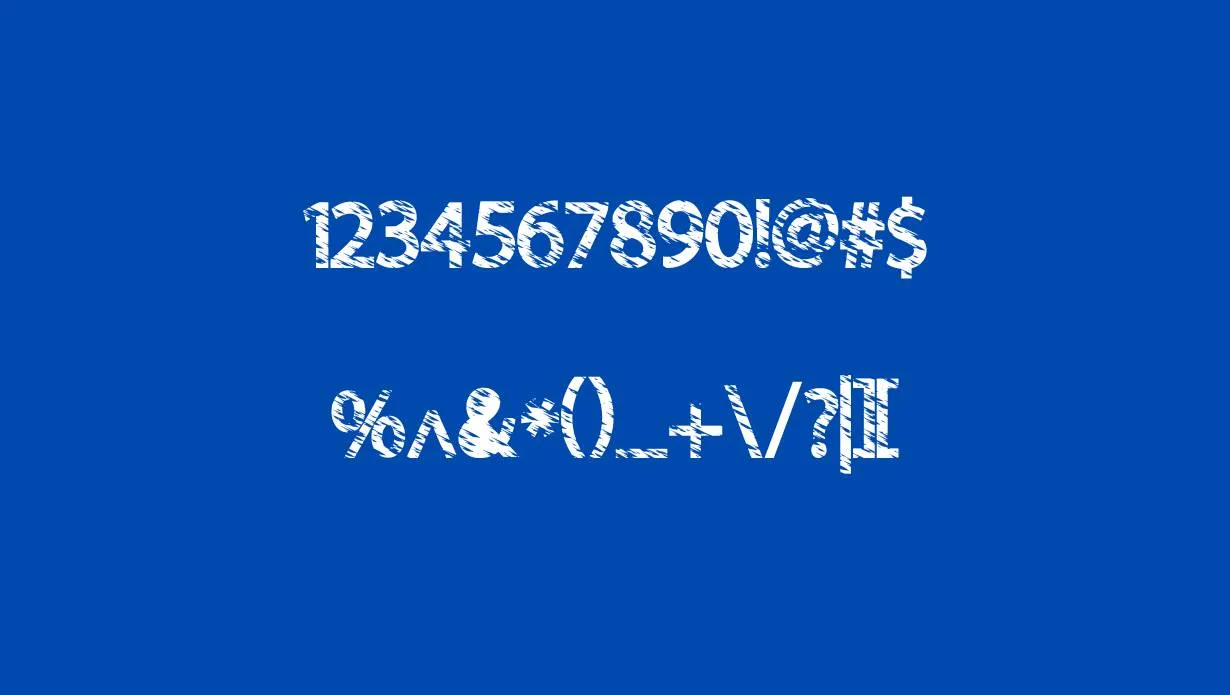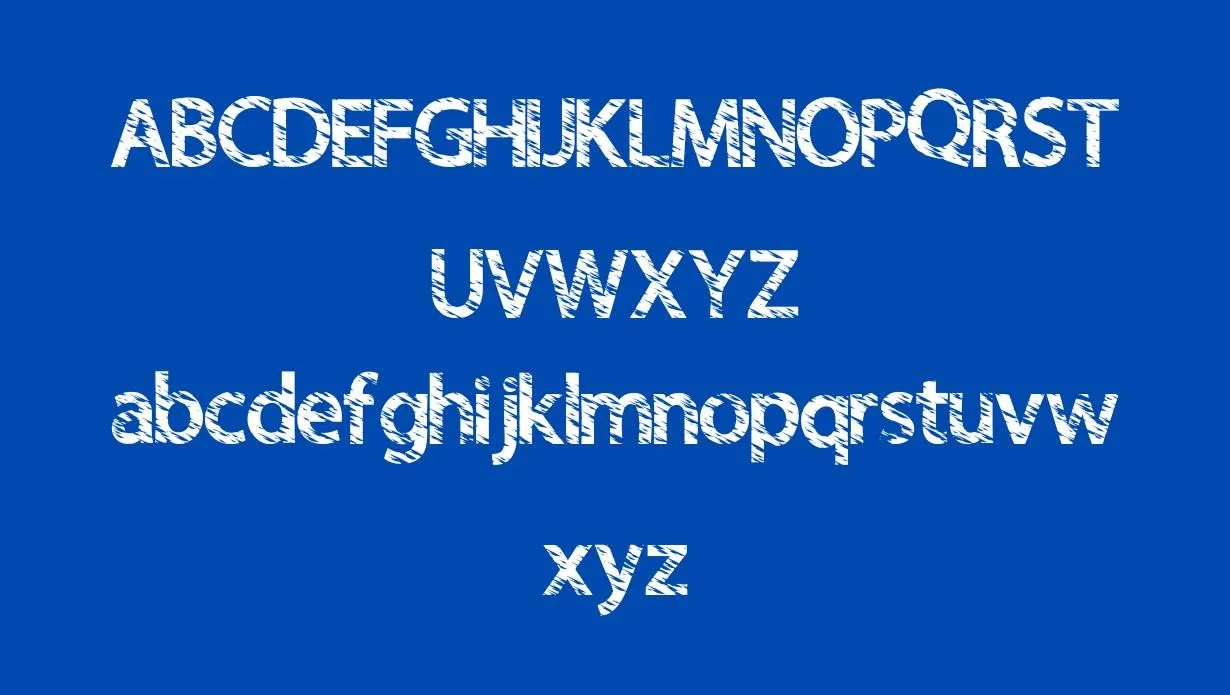
Introducing Quick Cut Font, a stylish font created by Max Infled and published by Xerographer Font Foundry in 2013 in both TTF and OTF formats.
This typeface includes uppercase, lowercase, numbers, punctuations, ligatures, and alternates, and it also supports basic Latin, Greek, and Cyrillic character sets.
This font is carefully made to improve legibility and readability, its character style makes it different from other font styles.